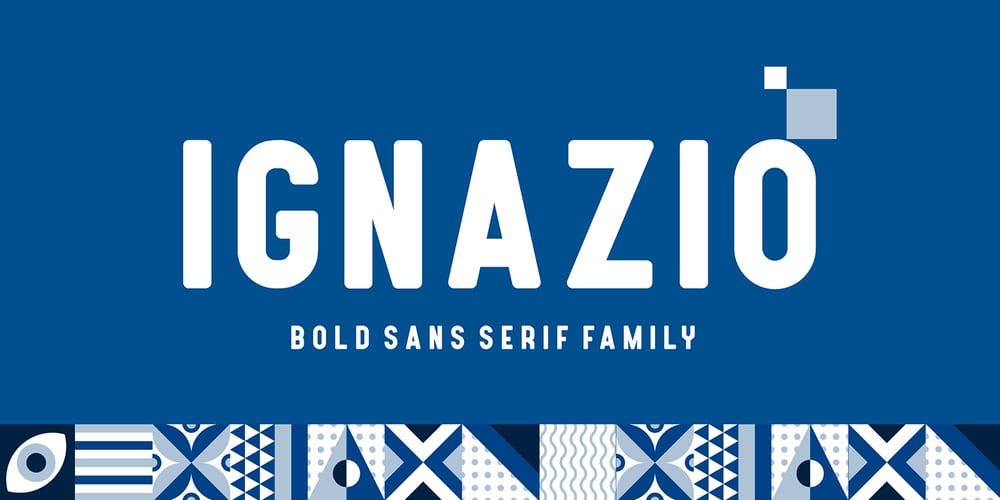
Ignazio Font Family was designed by Icep Anwar Fadhil and published by Figuree Studio. Ignazio contains 4 styles and family package options. Ignazio is a powerfull sans serif font family with modern touches. A balance of hard lines and smooth curve makes them able to stand on their own dynamicallyIgnazio includes all-caps fontsFeatures- Support for MAC or PC- Simple installation for Adobe Illustrator, Corel Draw, Photoshop, or Procreate (New Updated)- Support Multi-languageIgnazio works great in any branding, logos, magazines, films. The different styles give you a full range to explore a whole host of applications.